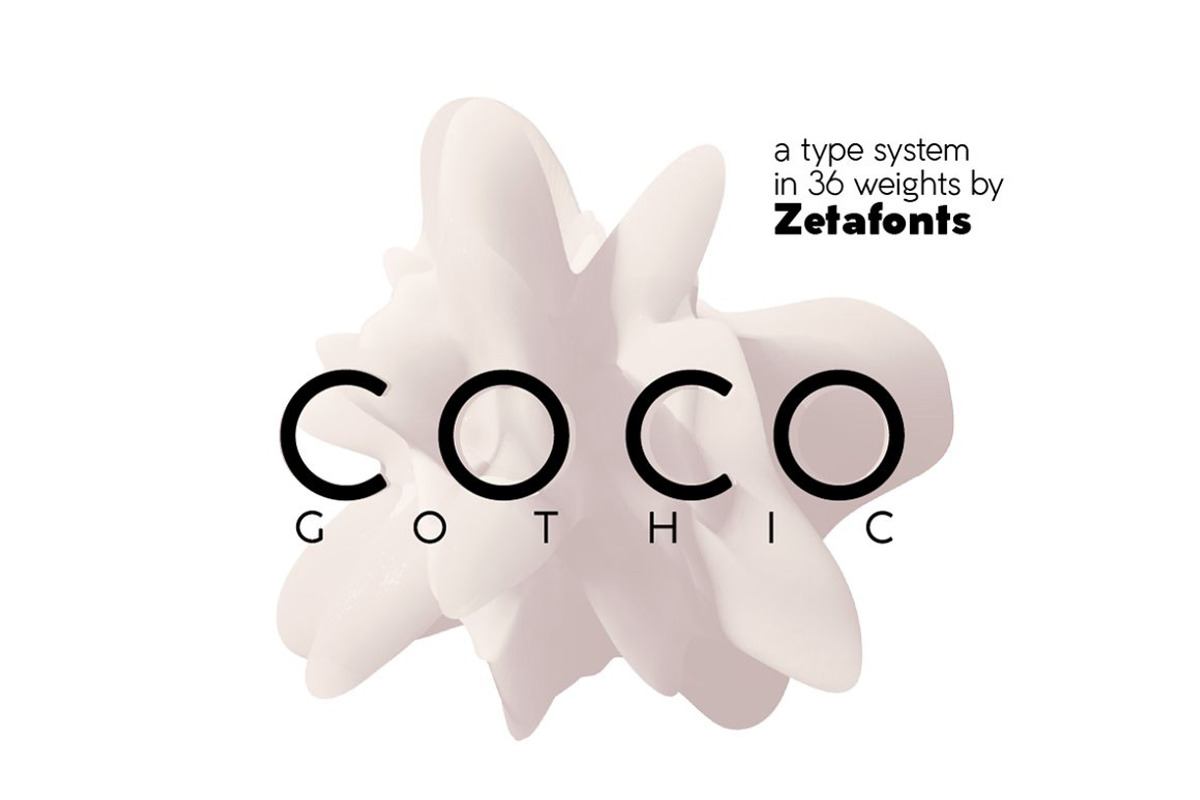
Coco Gothic - 36 Fonts Free Download is a comprehensive modern sans-serif typeface family inspired by the elegance of geometric design and the fashion-forward flair of the Art Deco era. With 36 versatile styles, ranging from thin to ultra-bold, this font collection is ideal for branding, editorial design, websites, and minimalist logos.
Whether you're crafting a luxury brand or designing sleek digital interfaces, Coco Gothic - 36 Fonts Free Download offers the perfect balance of style and functionality. Its clean lines, balanced proportions, and wide variety of weights give designers the freedom to create visually stunning and readable layouts. Test it out today to see how this complete font family can bring a refined, modern edge to your next creative project.